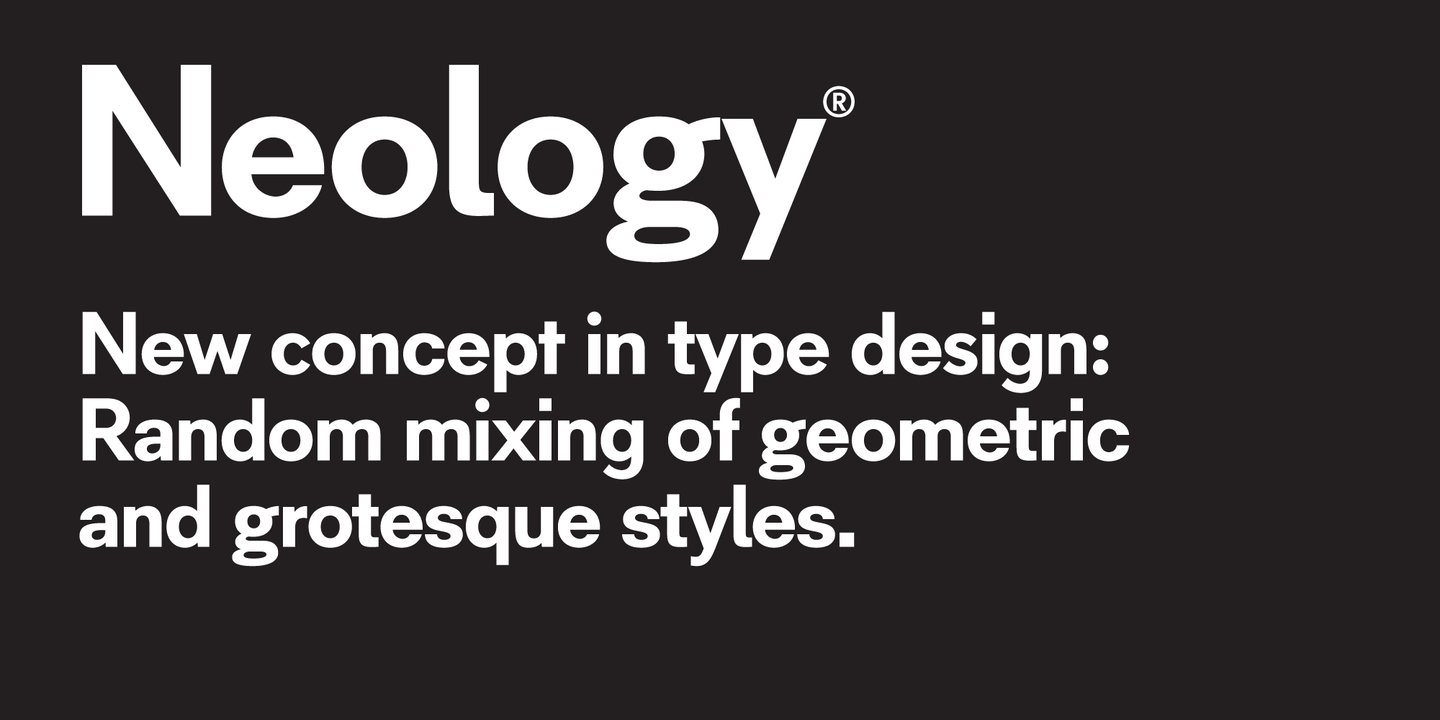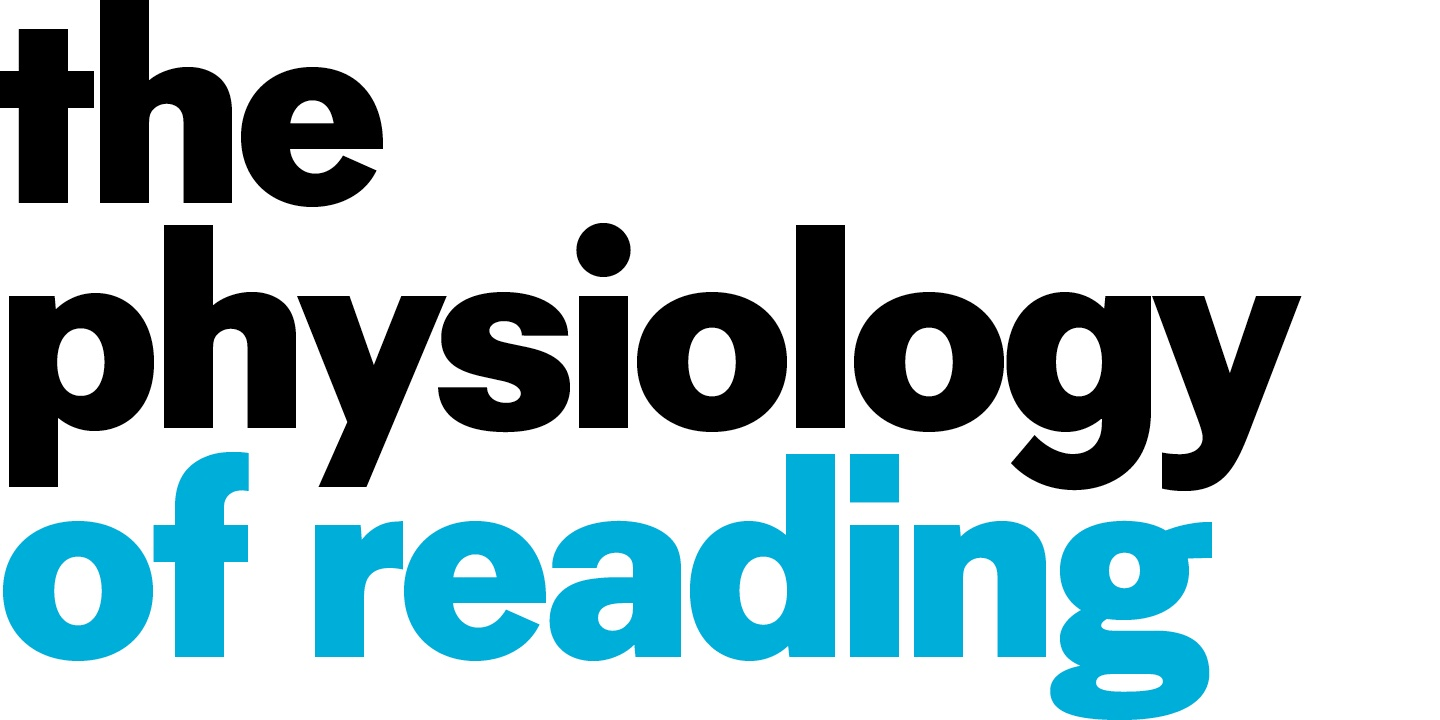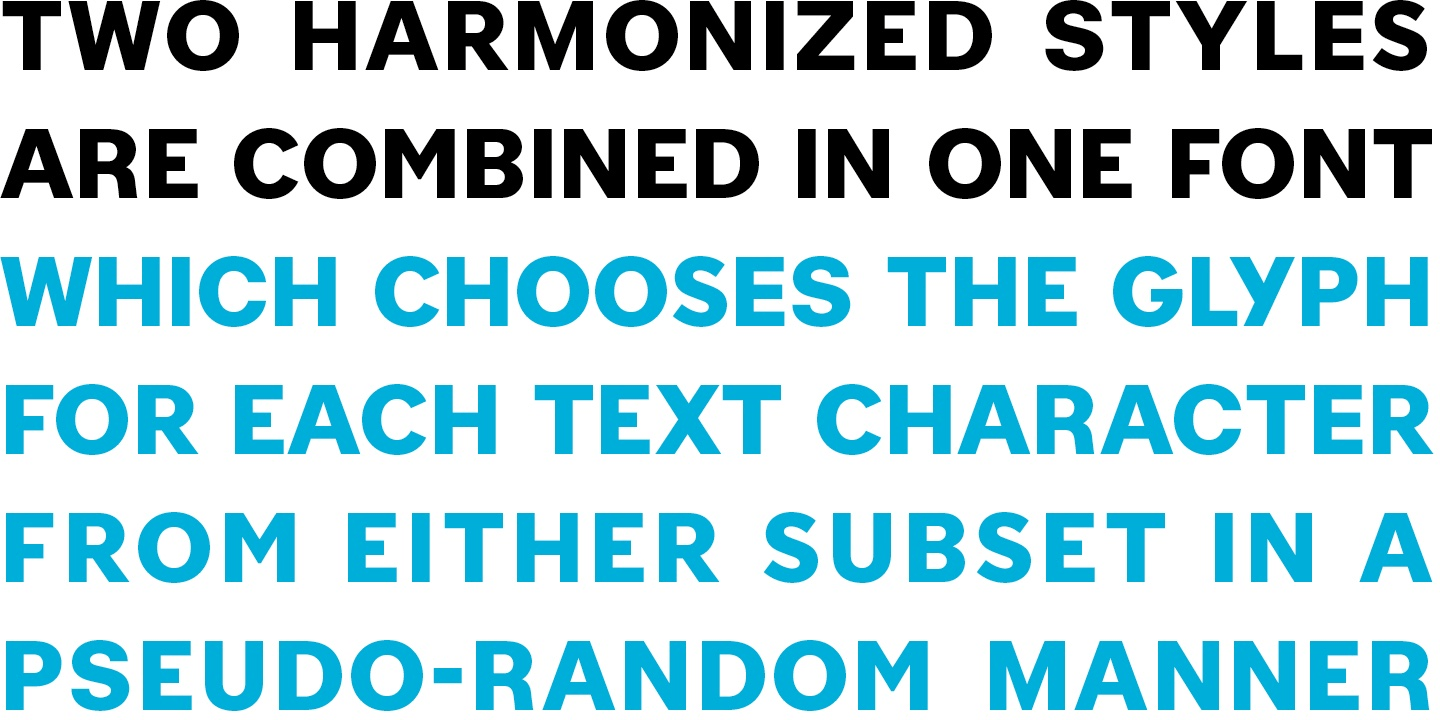
Neology
Font Family by Shinntype
This typeface has been designed to demonstrate a hypothesis: consistency in letter form and style is not essential to fluent reading.
The Neology fonts also include both plain constituents, Neology Deco (1920s-style minimalist geometric) and Neology Grotesque (similar to Helvetica etc., but with a small x-height).
All fonts have both three-quarter and full cap-height lining figures.
The plain fonts have stylistic alternates (?a? for Deco and ?g? and ?l? for Grotesque).